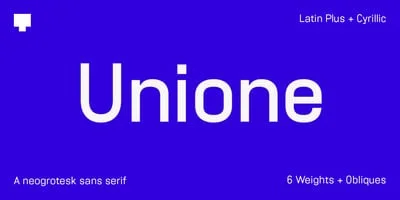
Unione Font
Unione Font is perfect for collaborative branding, unity-focused campaigns, team building materials, community organization identity, partnership communications, social movement graphics, international cooperation projects, cultural fusion designs, collective action campaigns, and harmonious applications that celebrate togetherness and shared purpose.
What makes Unione Font truly exciting is its powerful representation of unity and collective strength that brings people together through thoughtful typographic design and harmonious visual communication. This exceptional typeface embodies the spirit of collaboration with its balanced letterforms and cohesive character relationships that demonstrate how individual elements can work together to create something greater than the sum of their parts. The font's unifying nature and collaborative personality make it perfect for organizations and movements that seek to build bridges, foster connection, and celebrate the power of working together toward common goals.
The Unione Font family includes multiple weights and styles: Light, Regular, Medium, Bold, and Condensed variations designed to work in perfect harmony. Each family member maintains the distinctive collaborative character while offering flexibility for diverse unity-focused applications and collective branding systems. The comprehensive character set supports multiple languages and international design elements, making it suitable for global unity communications.
When you choose Unione Font, you're selecting a typography solution that strengthens bonds and builds bridges through design excellence and collaborative spirit. This unifying typeface excels in applications where togetherness and shared purpose are fundamental messaging elements, delivering exceptional visual cohesion while promoting collective understanding. Whether you're designing community brands, partnership materials, social campaigns, or collaborative projects, this font provides the unifying character and harmonious strength that resonates with audiences who value cooperation, shared values, and the transformative power of working together.